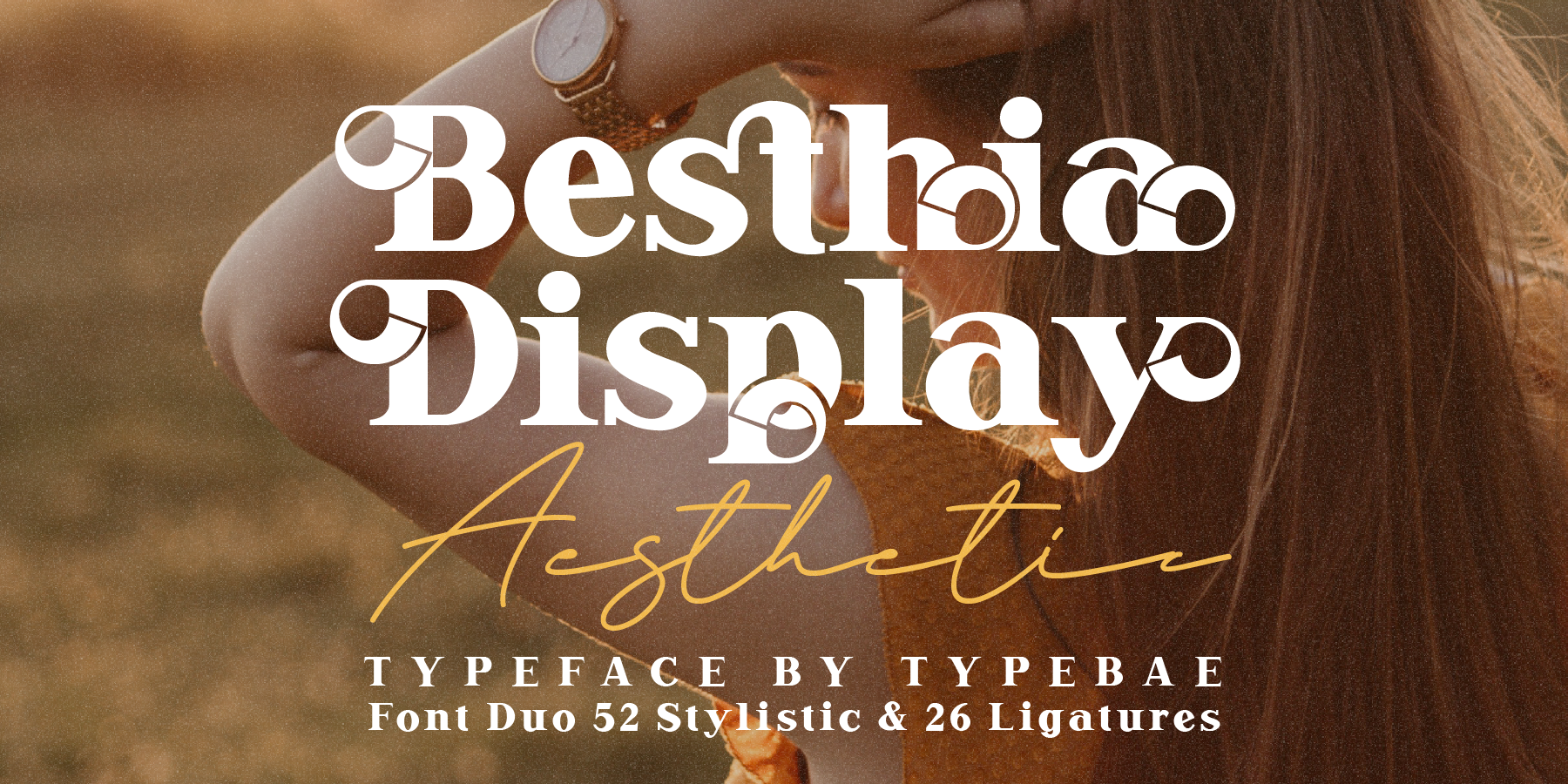
Besthia Display Font excels in elegant fashion magazine headers, luxury brand campaigns, sophisticated wedding invitations, high-end beauty product packaging, premium jewelry catalogs, upscale boutique signage, refined social media graphics, and exclusive event announcements. Its graceful sophistication makes it perfect for projects targeting discerning audiences who appreciate refined aesthetics.
What makes Besthia Display Font exciting is its perfect balance of contemporary elegance and timeless sophistication that elevates any design project. The carefully crafted letterforms feature flowing curves and precise proportions that exude luxury and refinement. This typeface embodies modern glamour and sophisticated style, making every design feel premium and exclusive with its distinctive high-fashion character.
Besthia Display Font family includes Regular, Bold, Light, Italic, Condensed, and Ornamental variations, providing designers with comprehensive options for creating stunning luxury-focused typographic compositions.
Transform your designs with the sophisticated elegance of Besthia Display Font Free Download. This exceptional typeface brings luxury and refinement to any creative endeavor, whether you're developing brand identities for premium fashion houses, crafting editorial layouts for lifestyle publications, or designing marketing materials for exclusive services. The font's elegant architecture and refined personality make it indispensable for projects requiring upscale appeal. Besthia Display Font seamlessly combines contemporary design trends with classic sophistication, making it ideal for brands seeking to communicate exclusivity and premium quality. The meticulously designed characters ensure optimal readability while maintaining the font's luxurious qualities, delivering designs that captivate sophisticated audiences and create lasting impressions of elegance and style.